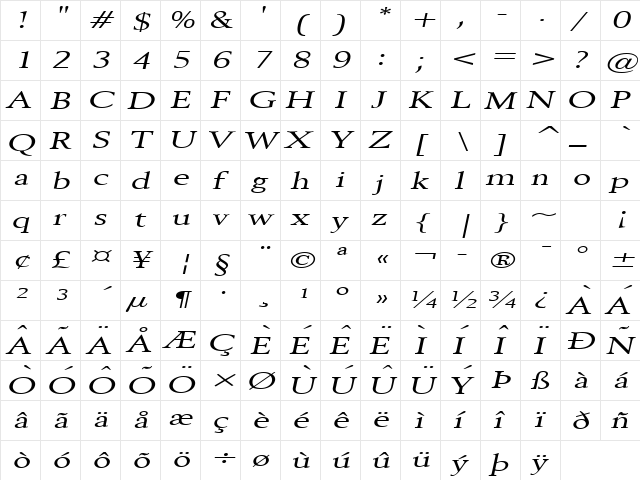
Revive 8 Extended Italic
Design Context for Revive 8 Extended Typeface
Revive 8 Extended is a composed and adaptable typeface that performs quietly and consistently across a wide range of design contexts. The dynamic lean of this cut emphasises speed and emphasis in any layout.
Pro Tip: Use Revive 8 Extended for emphasis, pull quotes, and subheadings where its slanted energy can add rhythm to the layout.